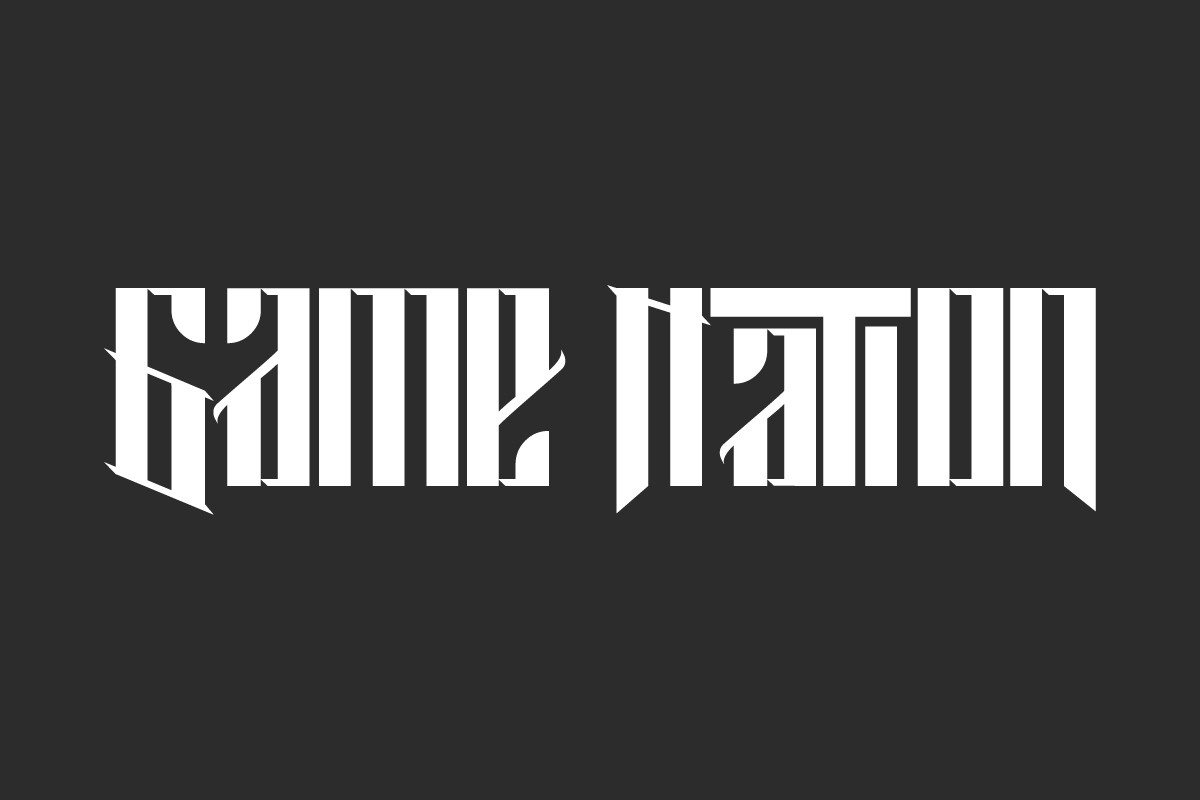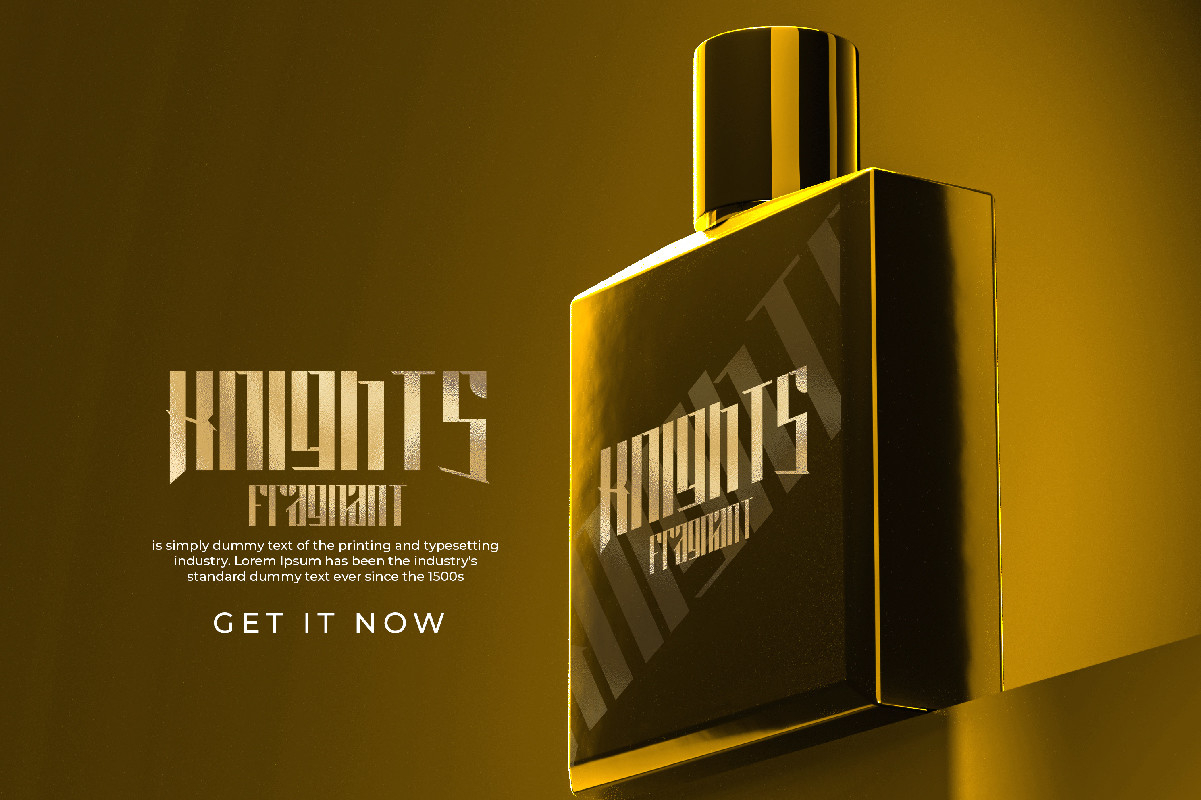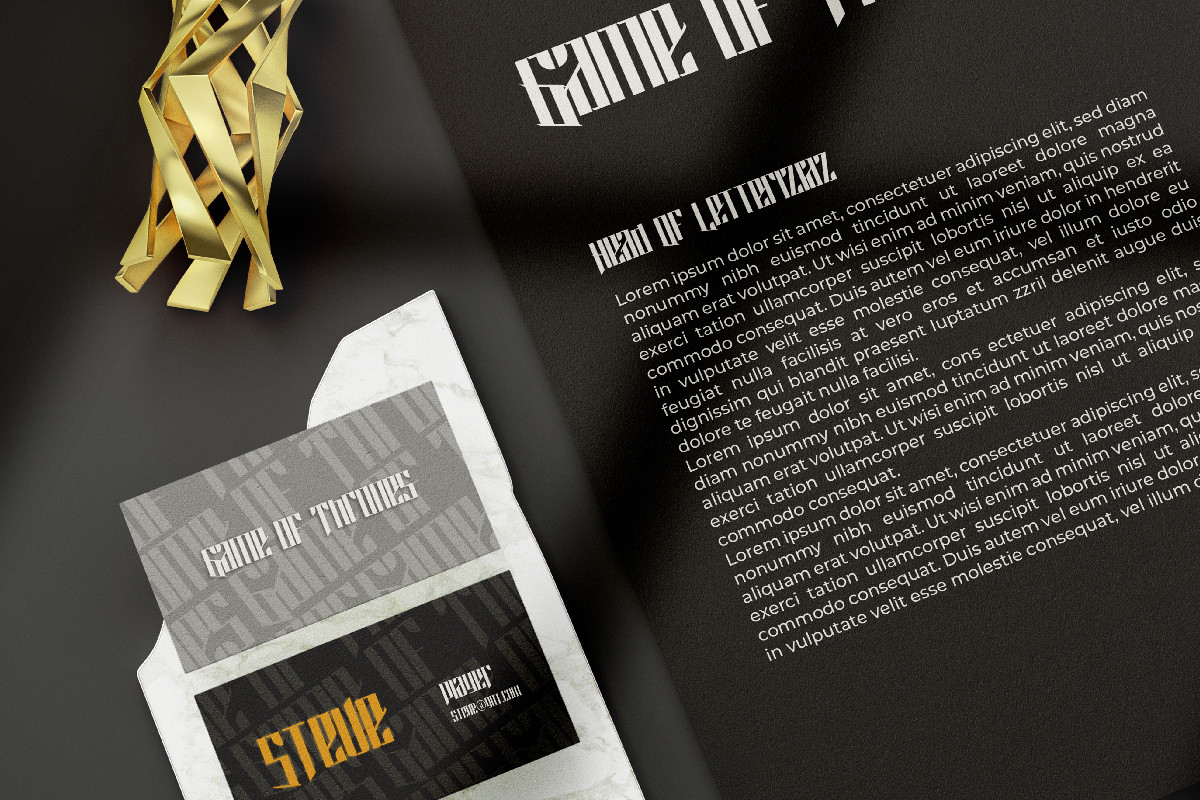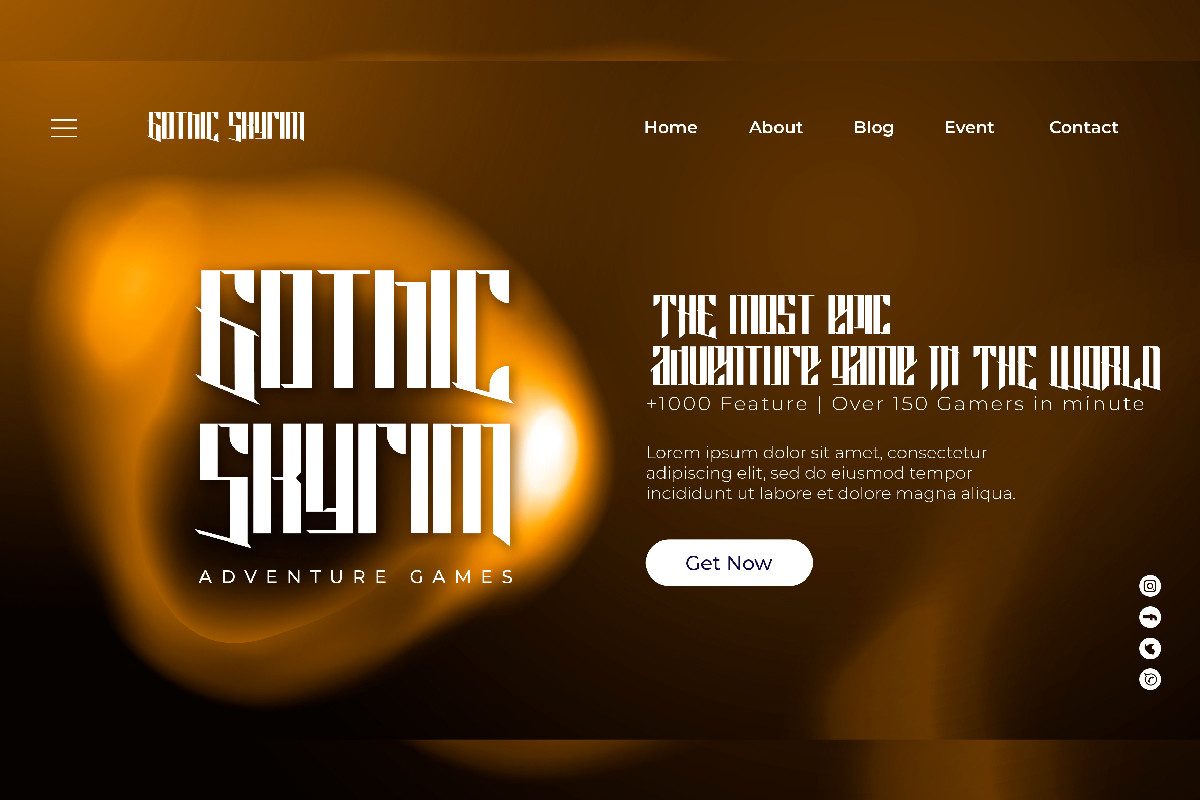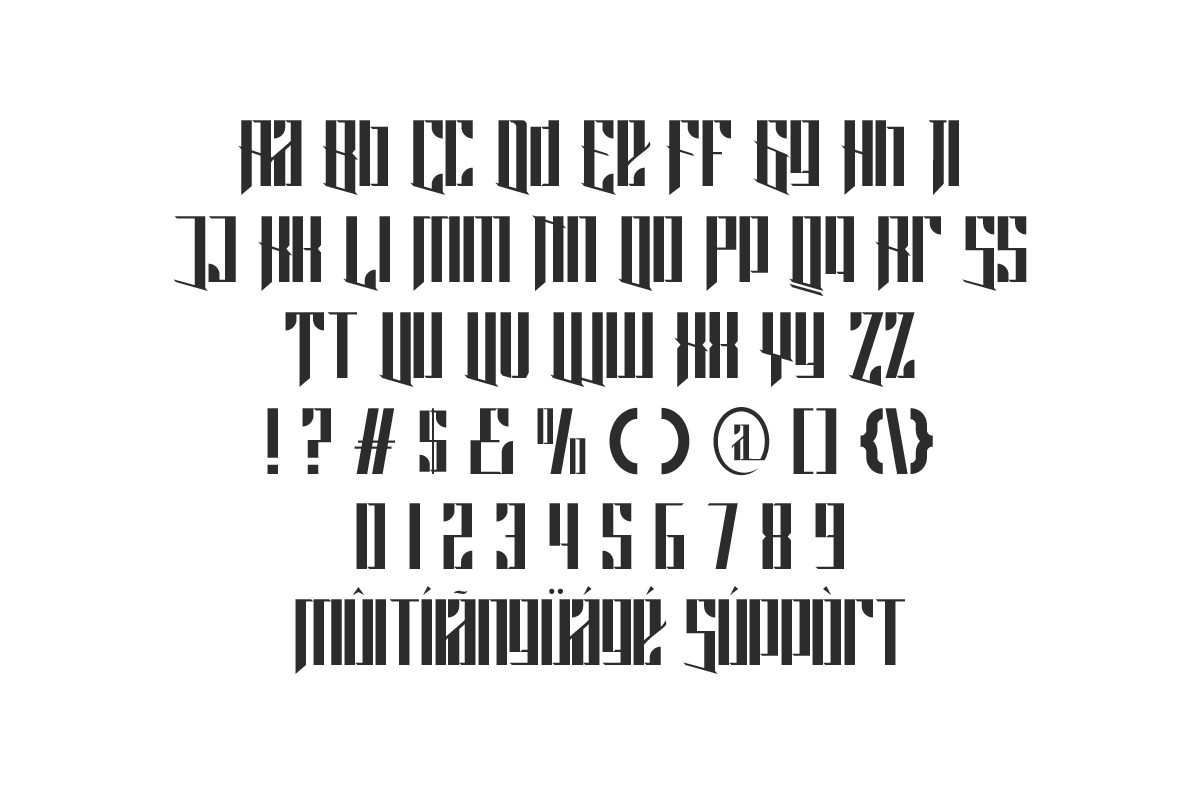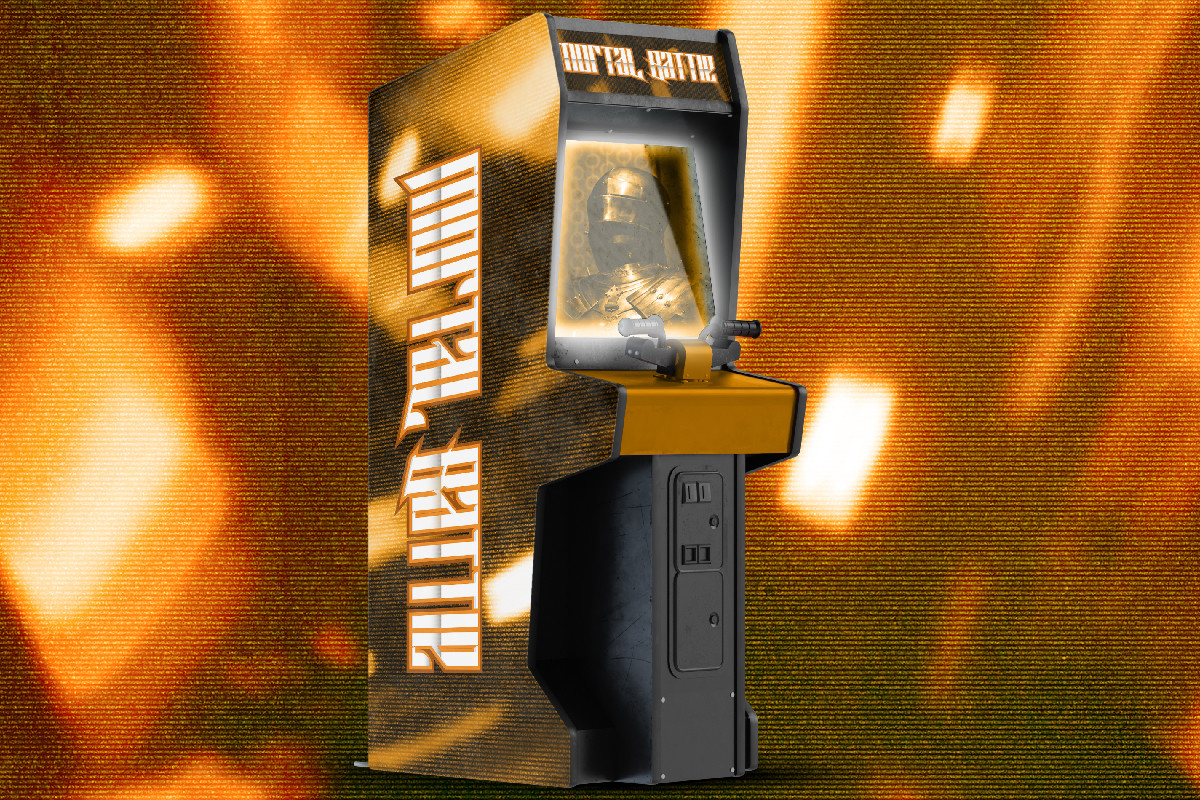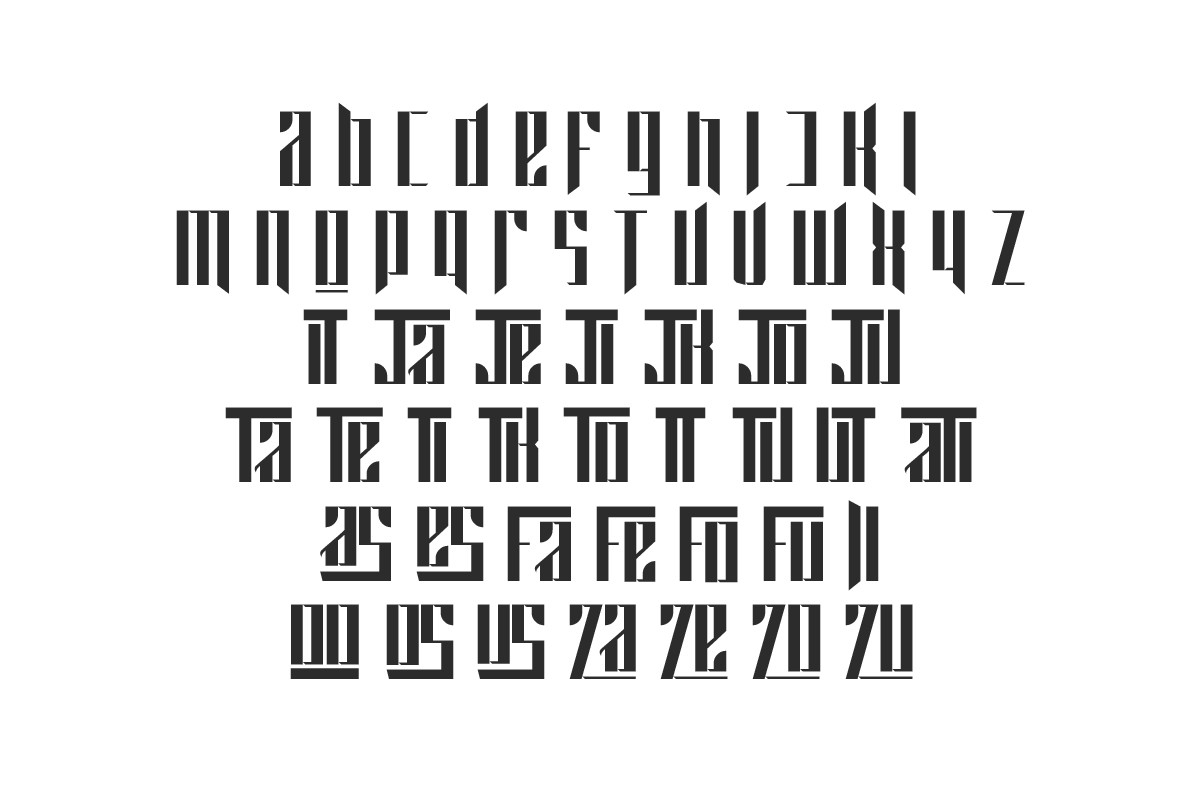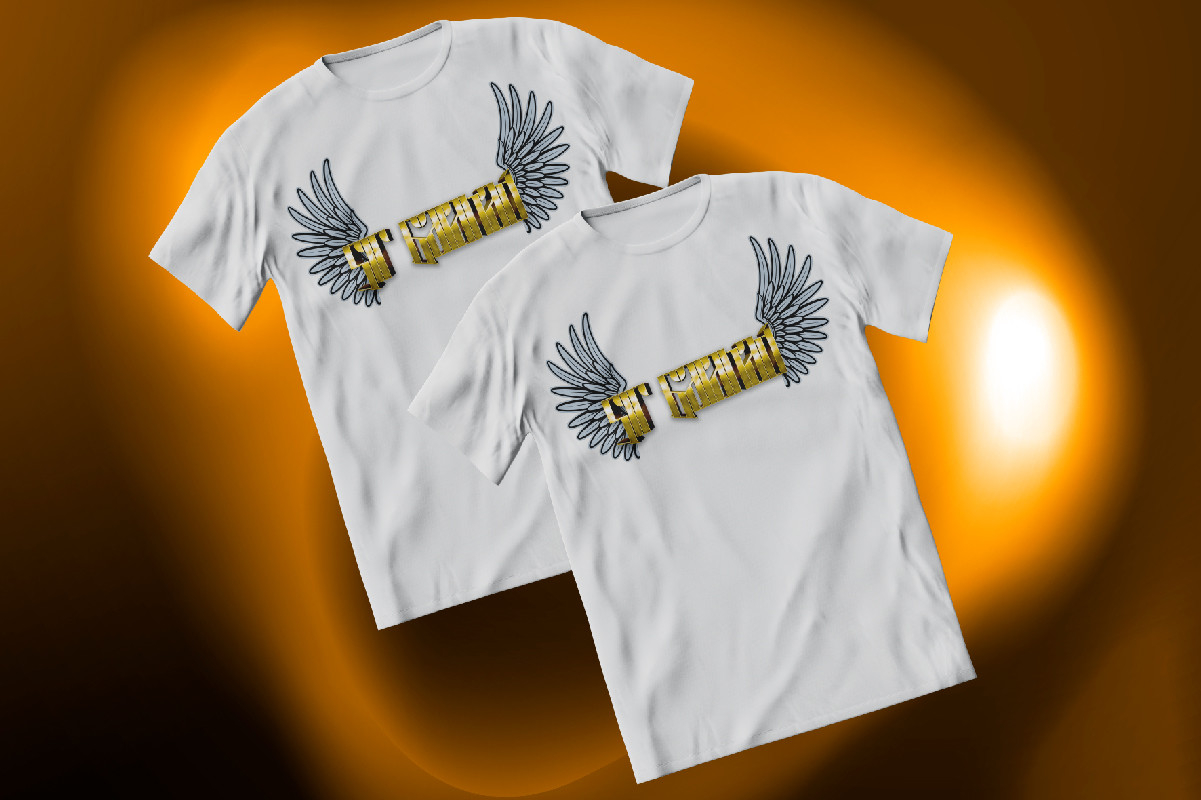
Game Nation Font
About Game Nation Font
Game Nation is an assertive and thick lettered blackletter font. It works great on various logos, branding and label that could benefit from a distinct and bold vibe. This font is PUA encoded which means you can access all of the glyphs and swashes with ease!